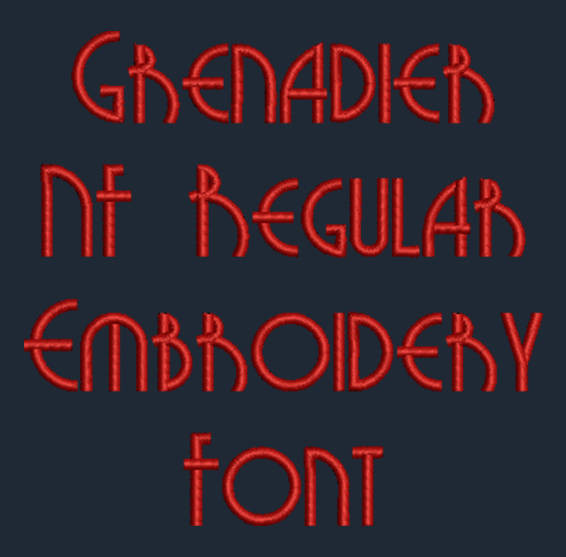
Art Deco - Grenadier NF Regular Machine Embroidery Font Now Includes BX Format!
Title: Grenadier NF Regular machine embroidery font
This Grenadier NF Regular font is perfect for personalizing clothes, bags, towels and linens!
This beautiful font would look amazing as a Monogram on Totes, School bags and purses!